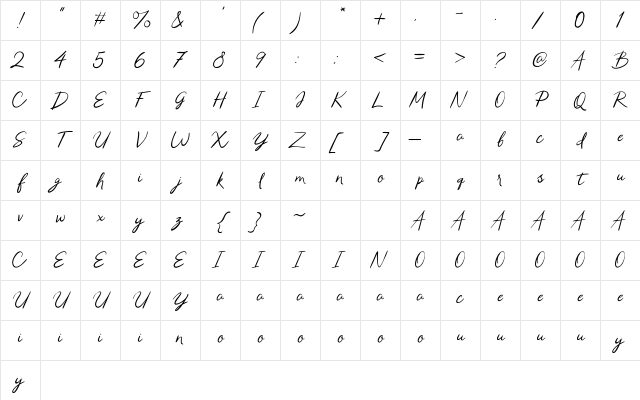
Complete Samantha Brandon Regular glyph index. Displaying only characters natively supported by Samantha Brandon Regular font.
Samantha Brandon is a composed and adaptable typeface that performs quietly and consistently across a wide range of design contexts.